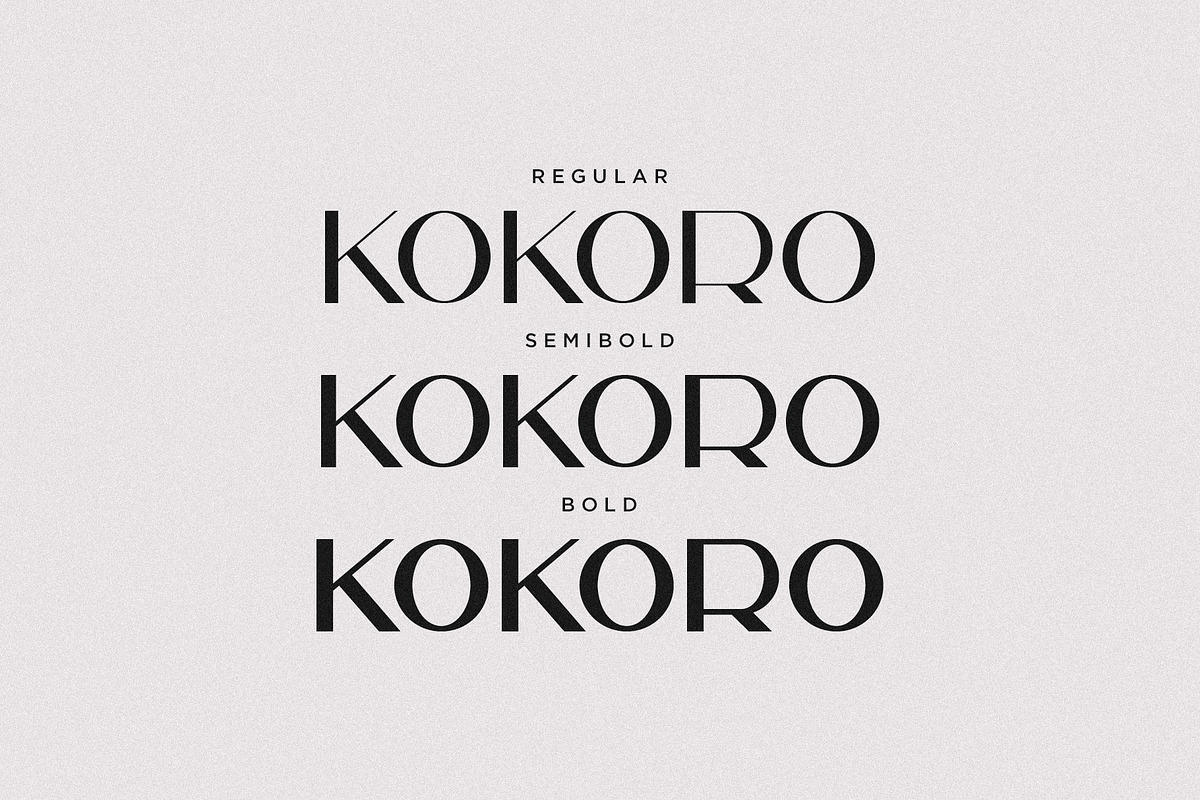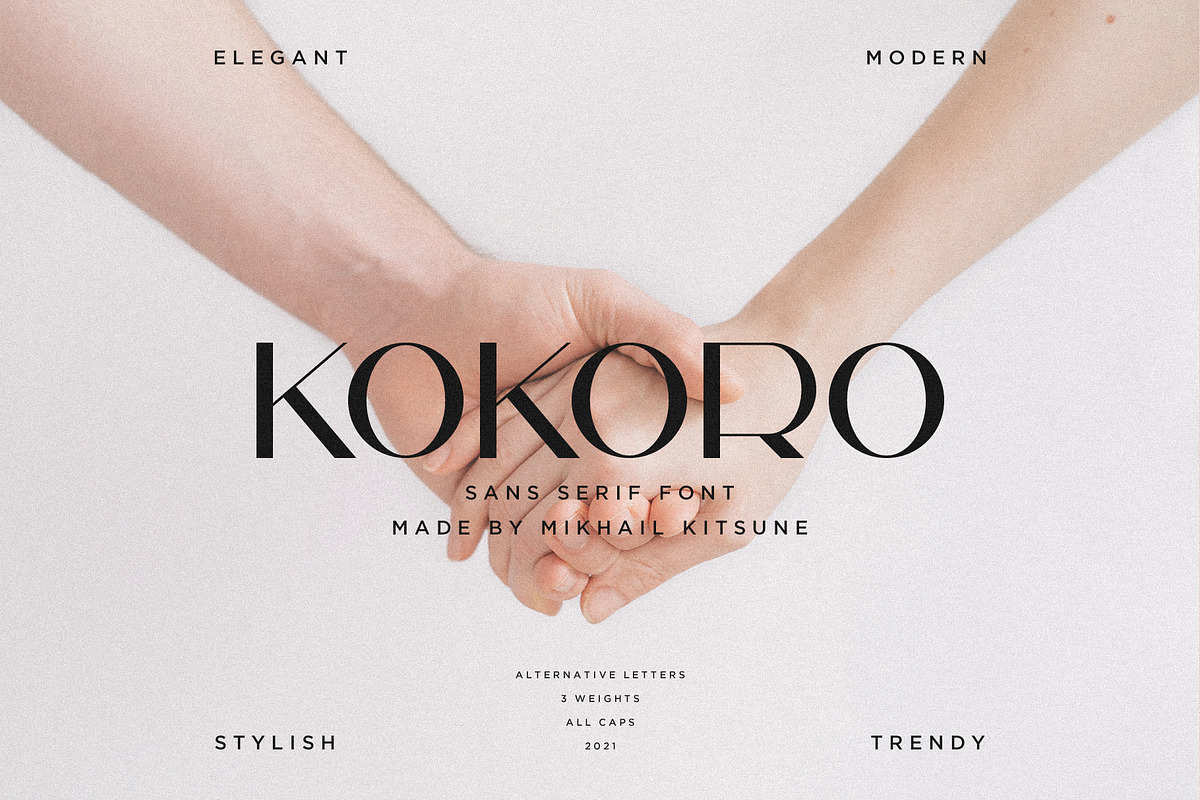
Kokoro - Modern Sans Serif
Kokoro is a modern sans serif font. Kokoro means "heart" (Japanese: 心). Kokoro is simple font that is both classic and minimal. Kokoro has a regular, semibold and bold versions and comes with multilingual support.
Kokoro includes:
- 3 Versions: Regular, Semibold, Bold
- Letters
- Symbols & Punctuation